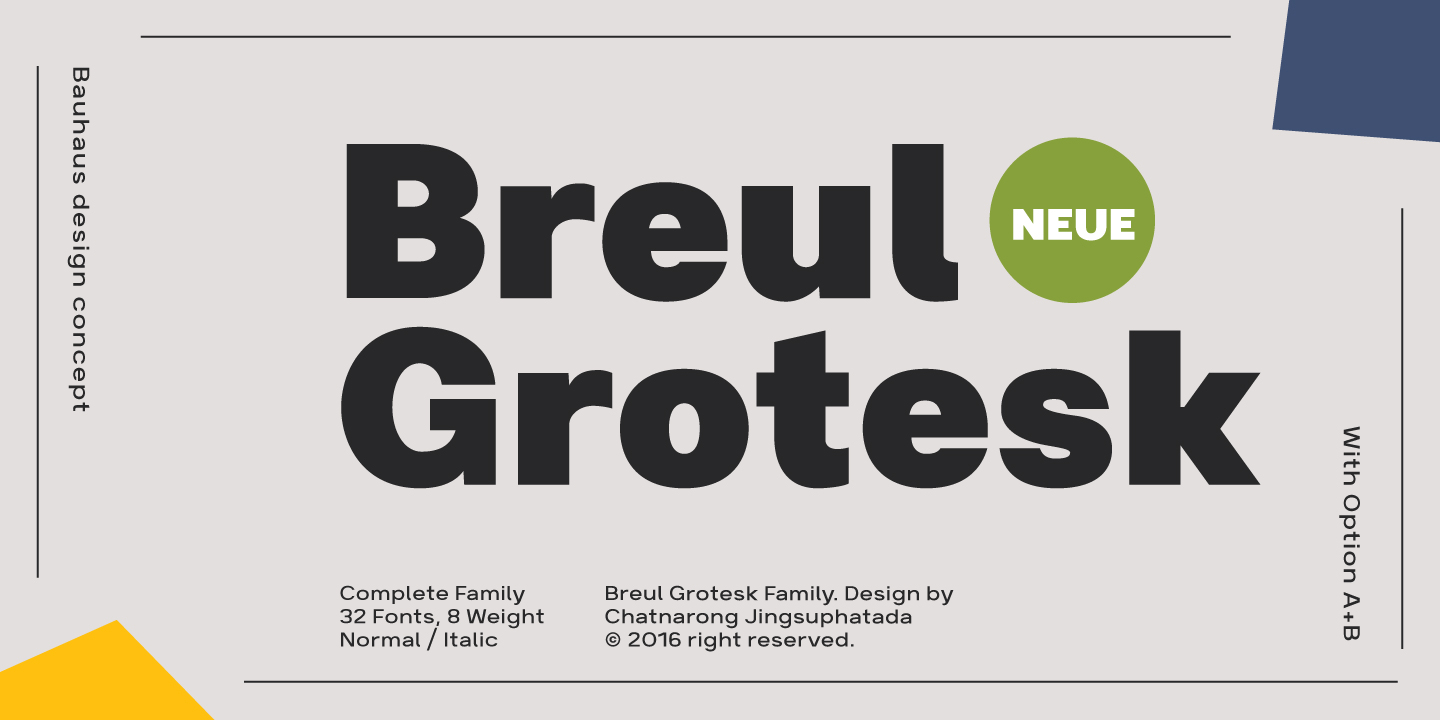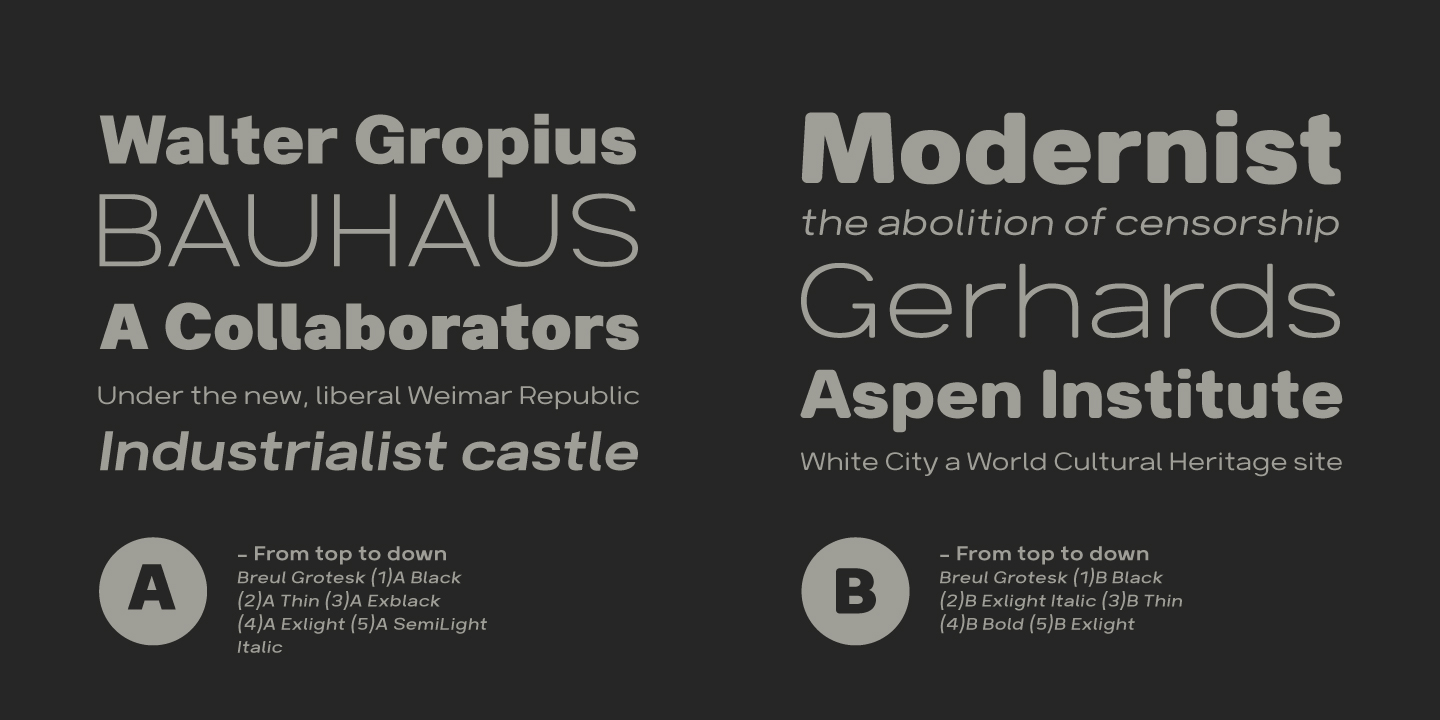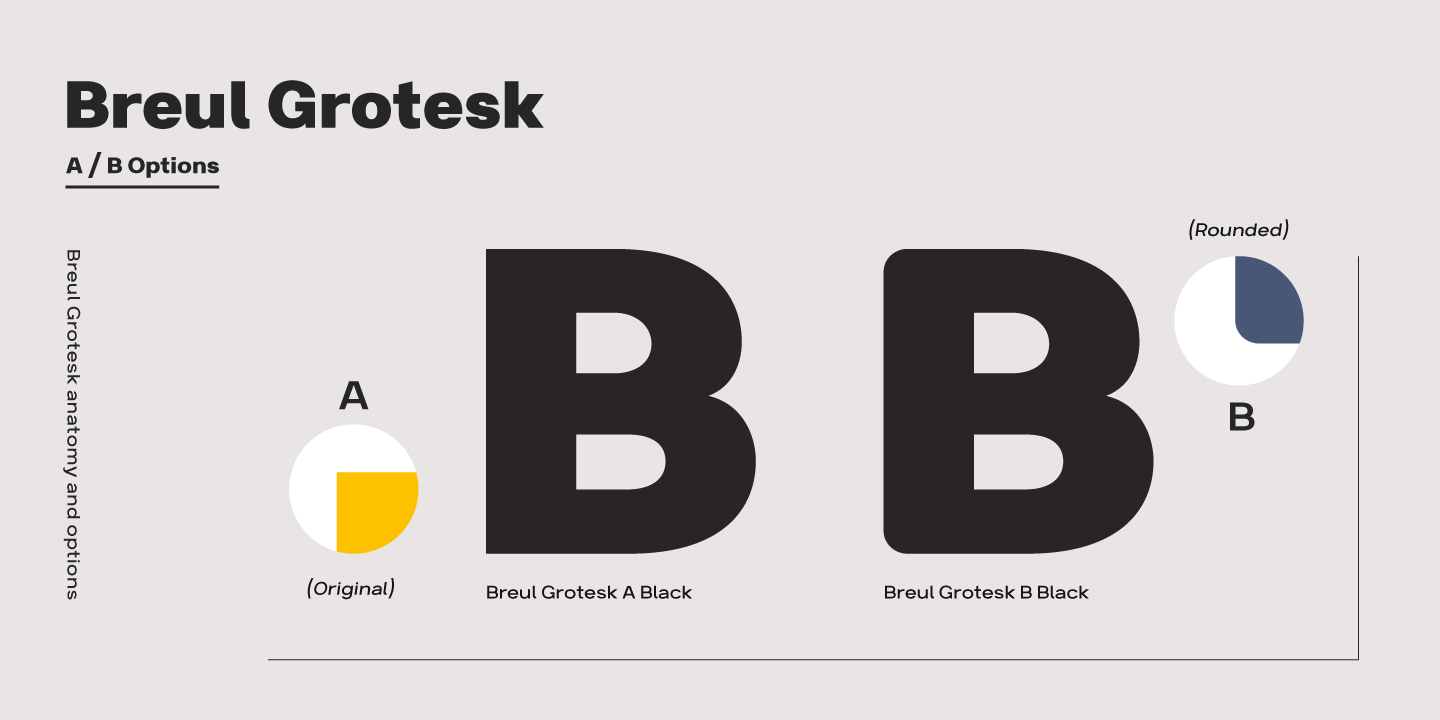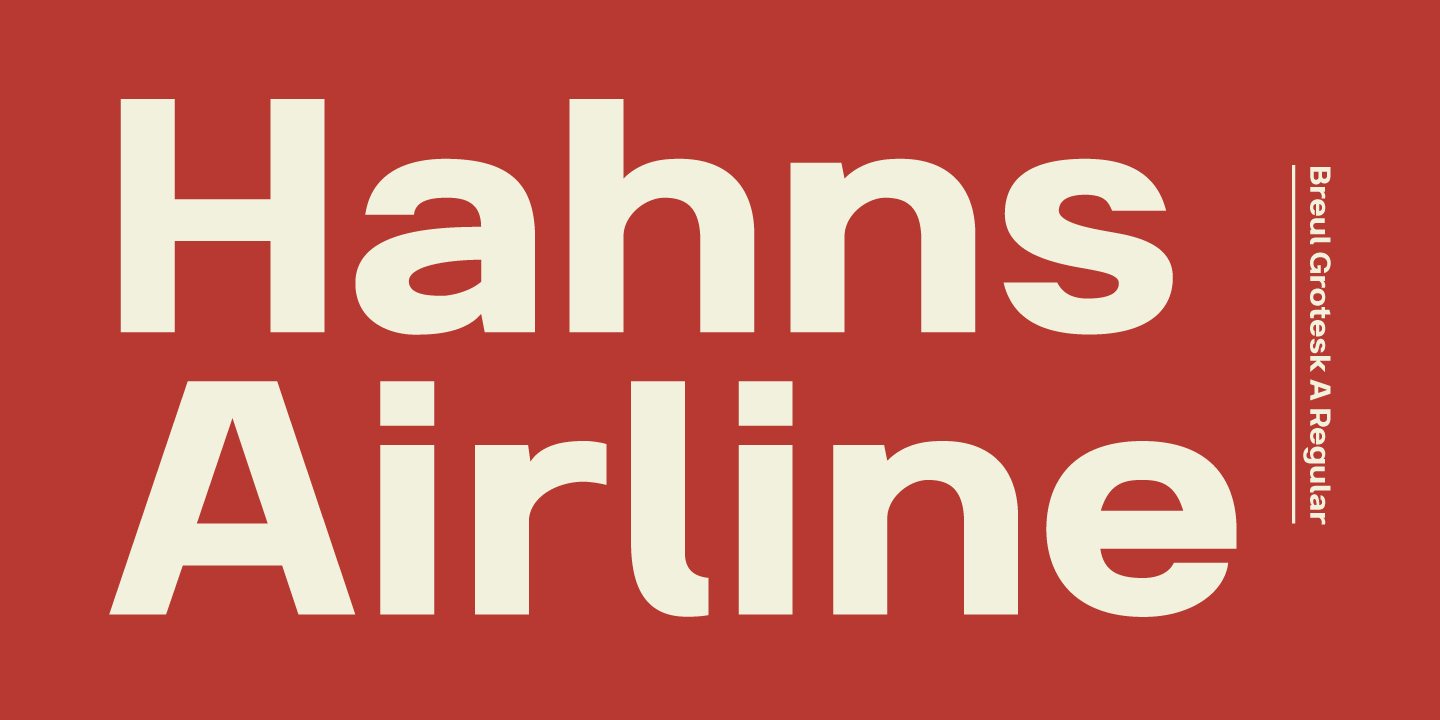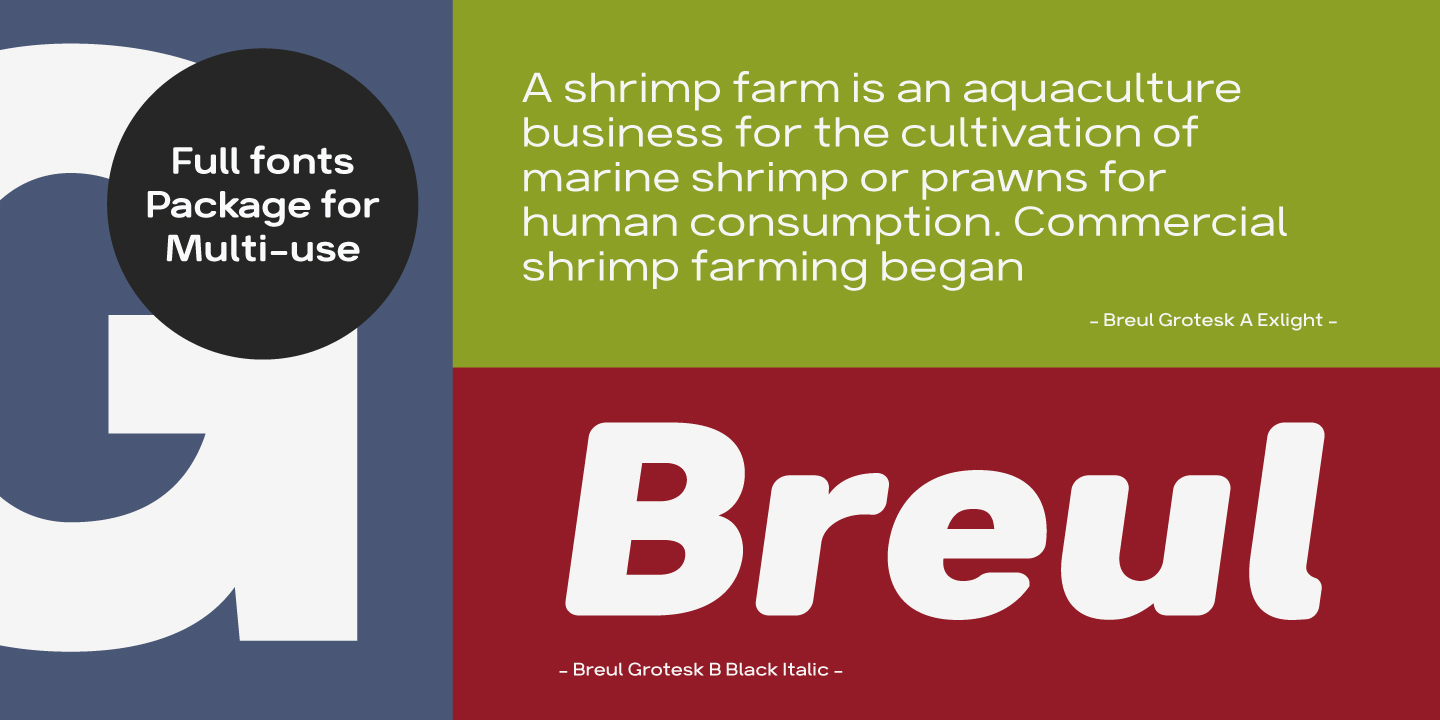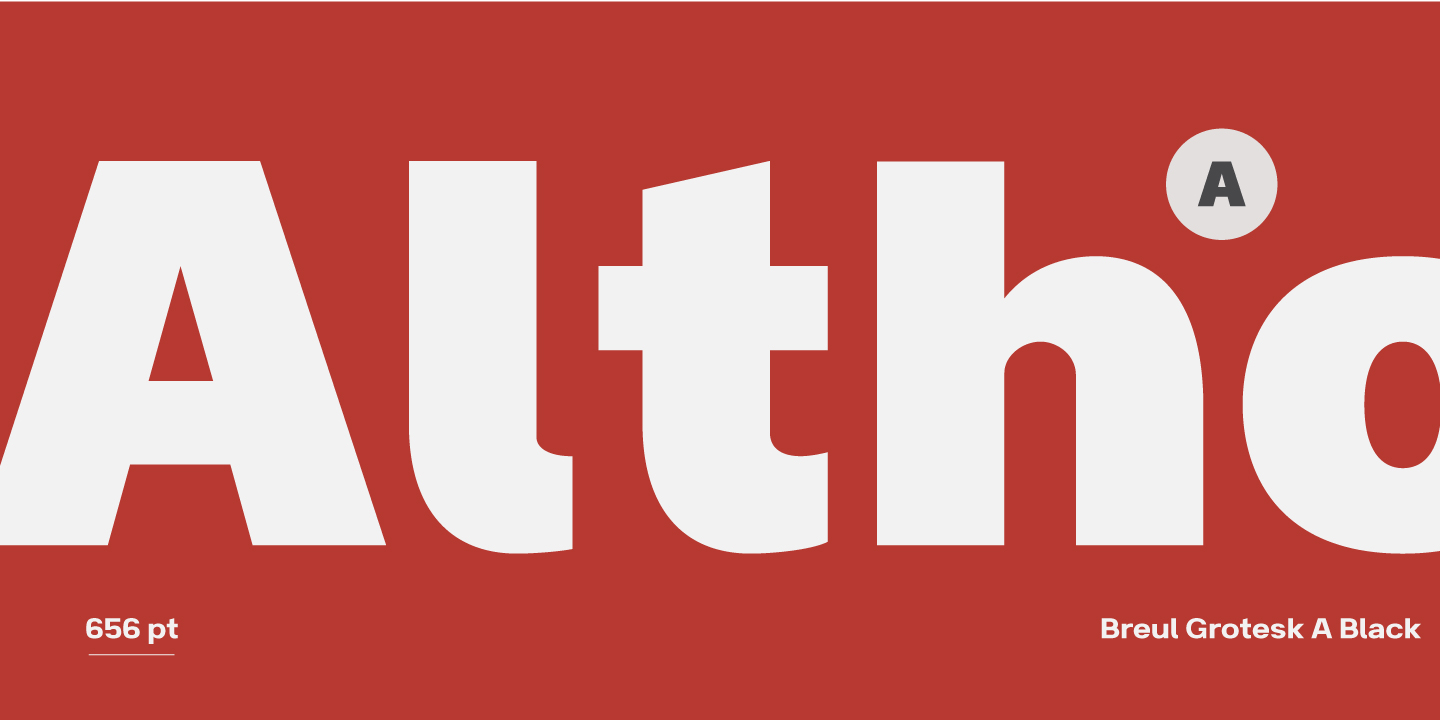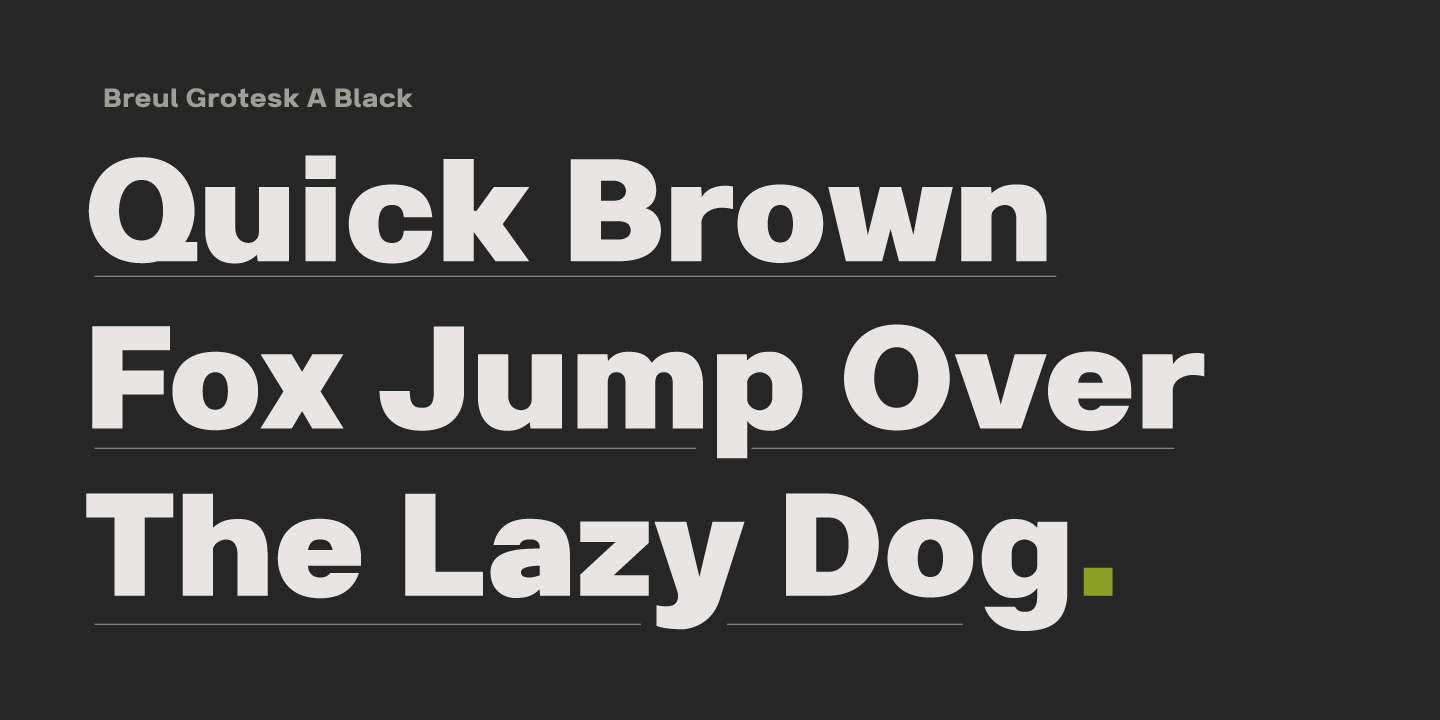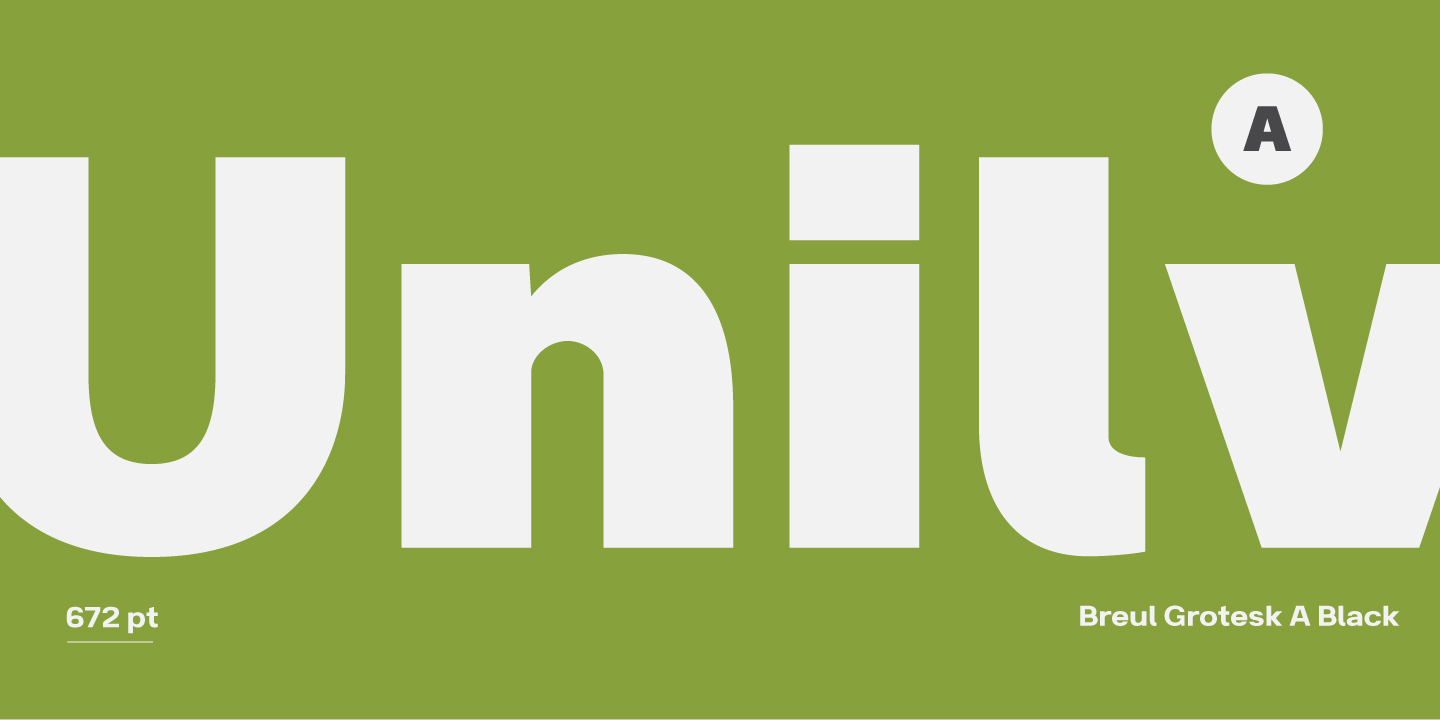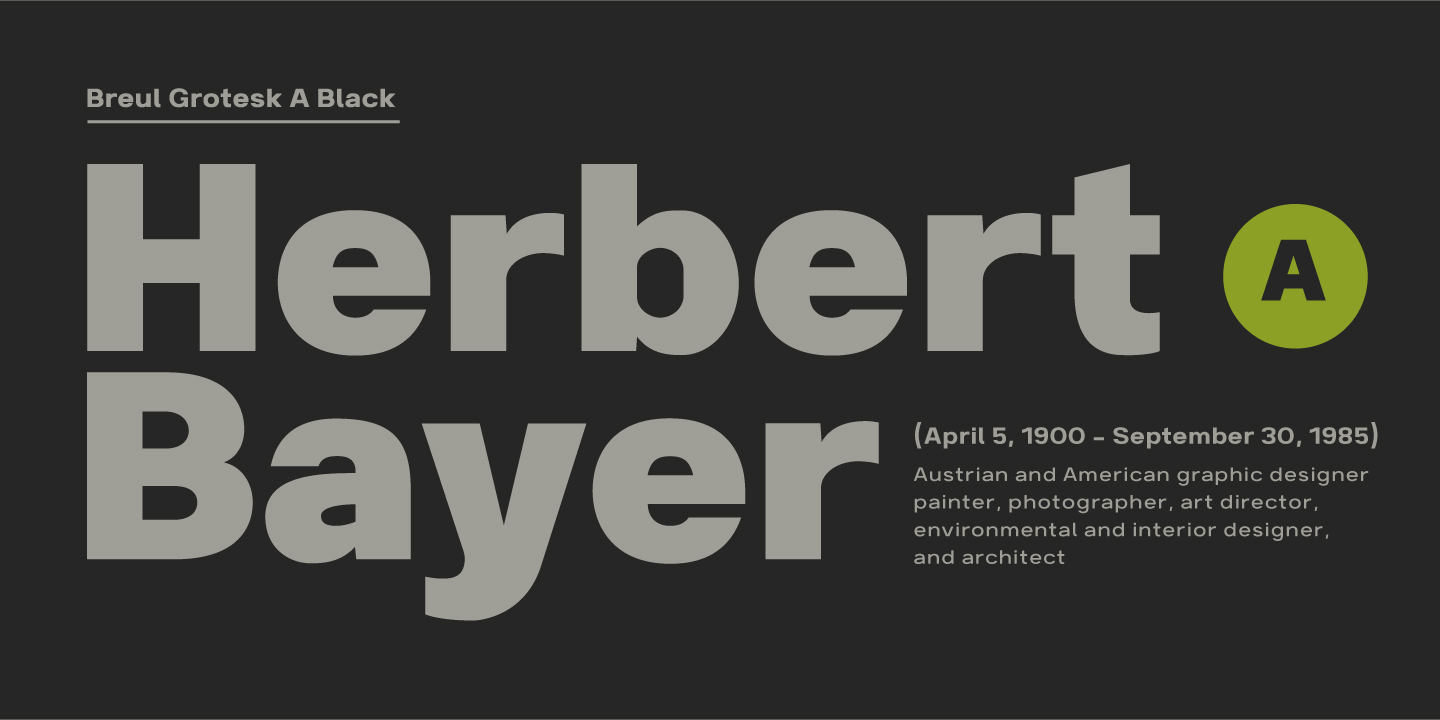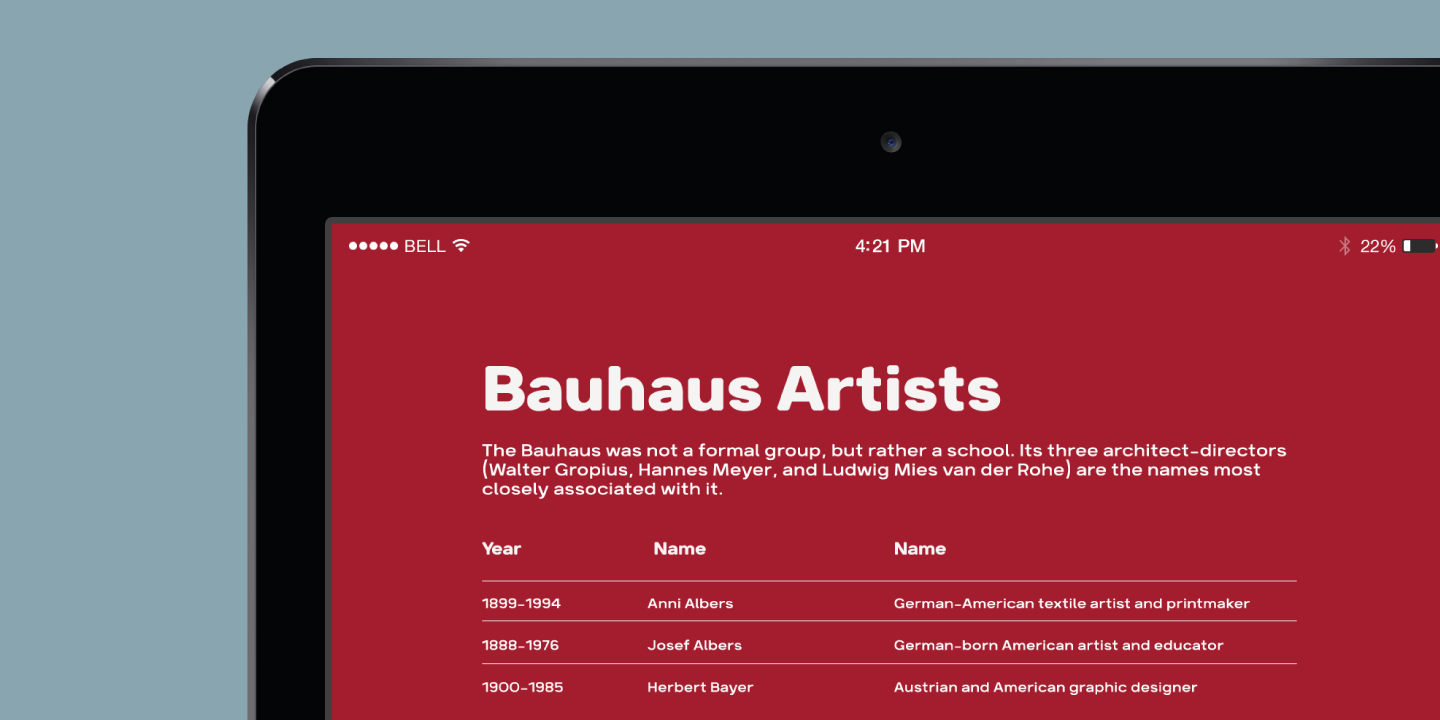
Breul Grotesk Family (32 fonts)
Brueul Grotesk has A and B sets with 16 letters each, giving you an all-purpose usage.
Located in the capital city of Thailand, Chatnarong Jingsuphatada started his type design career while working as a graphic designer. Throughout his career, whenever he was unable to find exactly what he needed for his own design projects, he began to create new typefaces rather than settle for ones that didn’t quite fit.
He experimented with different designs for 2 years before launching his Superstore Font Foundry, and then in 2012, began selling his typefaces commercially. Chatnarong made his debut with Gusto, a font that explores the intersection of san serif and humanist styles. Finding a strength in his ability to combine different styles of fonts into one, he went on to create Quan, which consists of a very usable, clean and modern sans typeface and a more rounded sub-family.
The Bangkok-based designer says, “Having worked as a graphic designer, I have gained insight into what designers want and need and what they look for in regard to how usable and interesting a font is. I try to create fonts that are multi-functional and attractive to suit today’s diverse fields of design. I draw inspiration from the creation and integration of different sets of fonts. This method offers me endless possibilities to design original typefaces that boast versatility and creativity.”